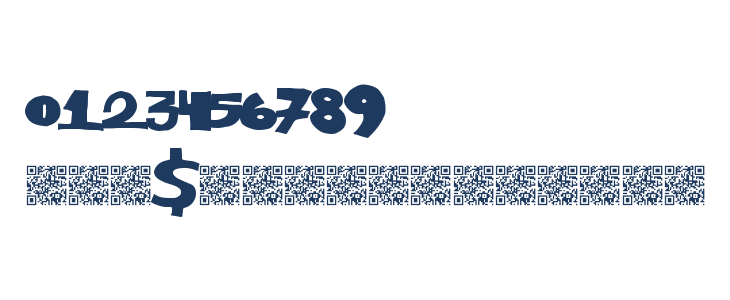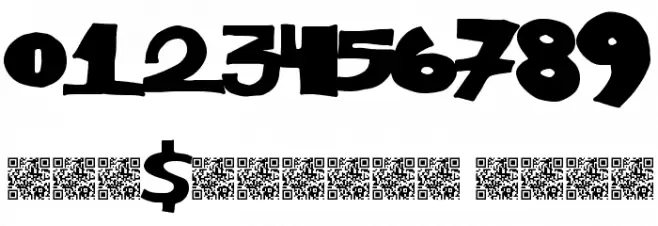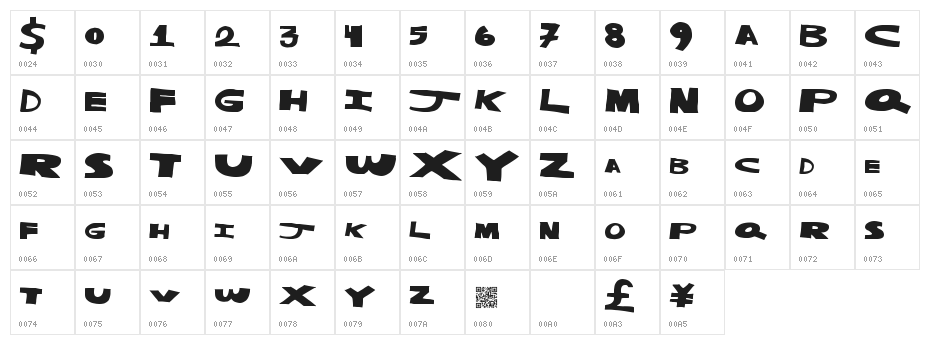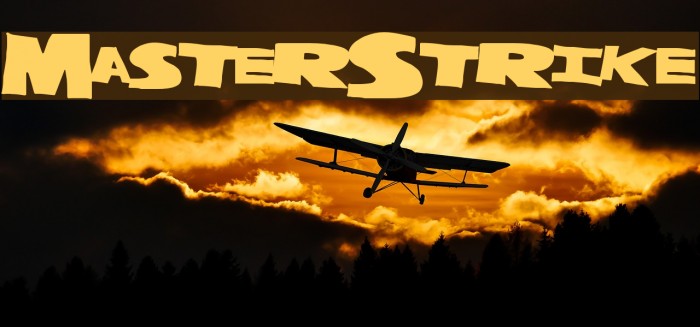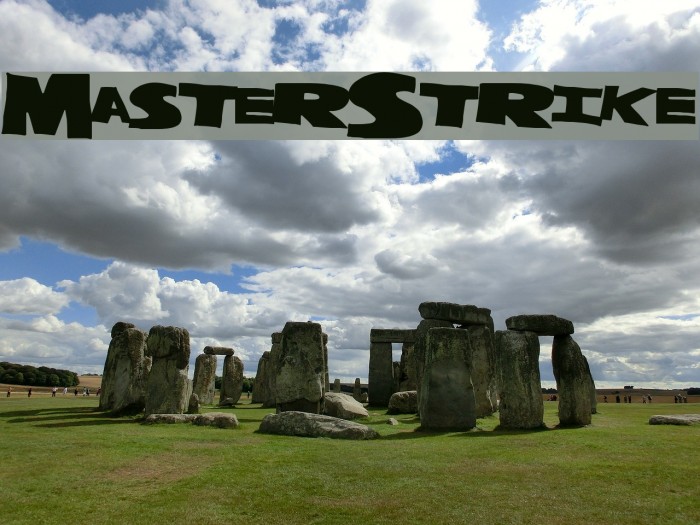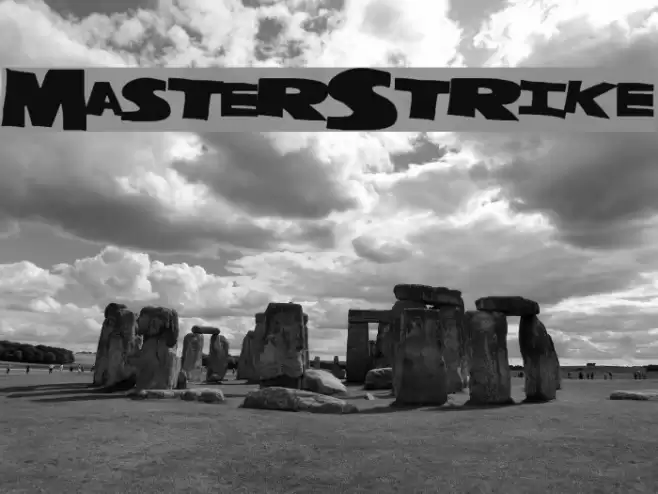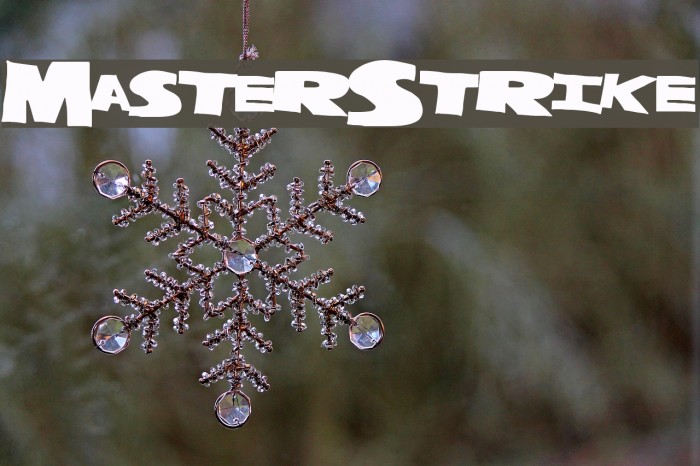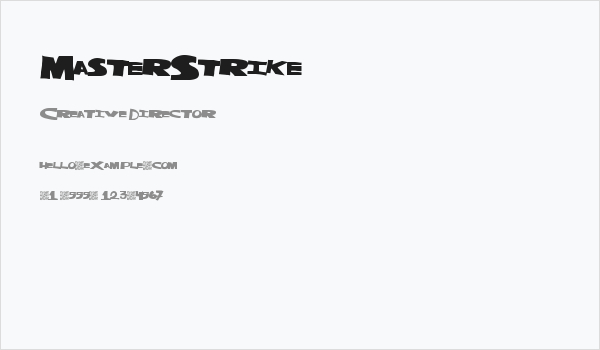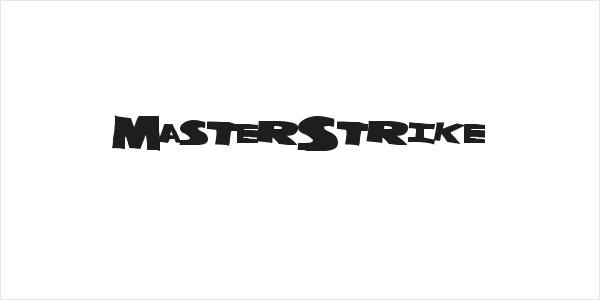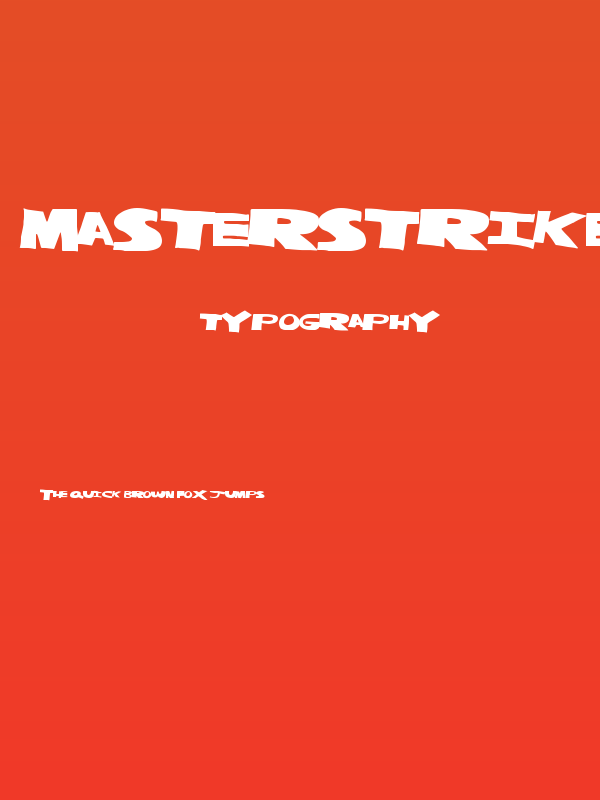
MasterStrike Font
MasterStrike Description
This font features a bold and dynamic style with a playful, cartoonish appearance. The letters are heavily stylized with exaggerated curves and angles, giving them a sense of movement and energy. The uppercase and lowercase letters maintain a consistent design, with the uppercase being more pronounced. Numbers and special characters follow the same whimsical style, making the font suitable for creative and informal applications. The strokes are thick and consistent, contributing to a strong visual impact.
| Overall Style | Playful, Cartoonish, Energetic |
| Use Case | Headlines, Posters, Branding, Comics |
| Proposed Projects | This font is perfect for comic books, children's books, playful branding, posters, and any project that requires a fun and energetic typeface. |